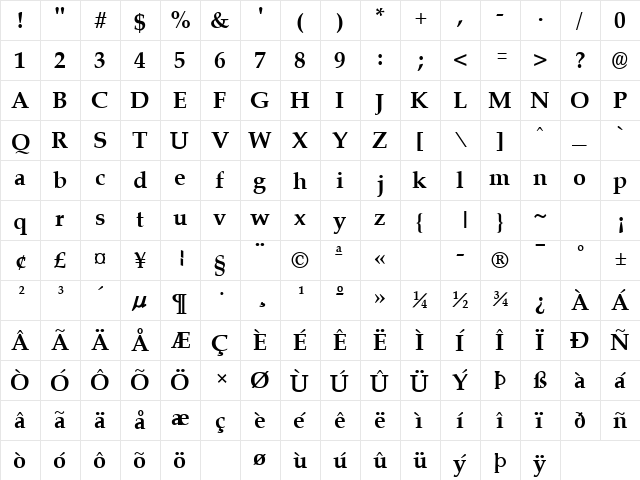
GE Palladian Bold
Design Context for GE Palladian Typeface
GE Palladian is a composed and adaptable typeface that performs quietly and consistently across a wide range of design contexts. Its bold stroke weight gives it real presence on the page.
Pro Tip: Pair GE Palladian with a font of contrasting weight or personality to build a more expressive typographic hierarchy.